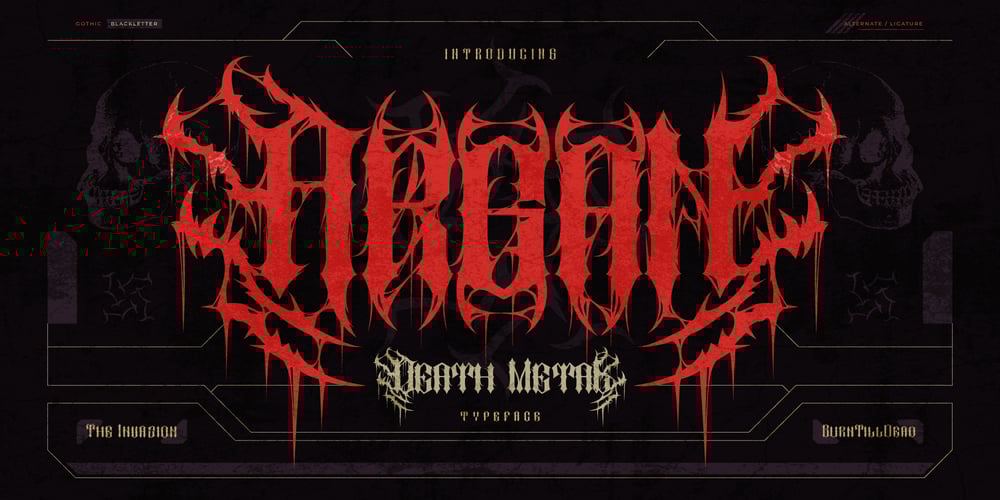
Argan Font Family was designed by Eric Kurniawan and published by Burntilldead. Argan contains 1 styles and family package options. Argan is a black metal font with angular and distorted letters. It convey a sense of chaos and are typically used to evoke the dark, intense themes associated with the black metal music genre. let’s growled, slashing through the silence in a death metal font, as fierce and unyielding as the genre itself—where every letter is a testament to Features: Argan A-Z set Numerals Punctuation Alternate